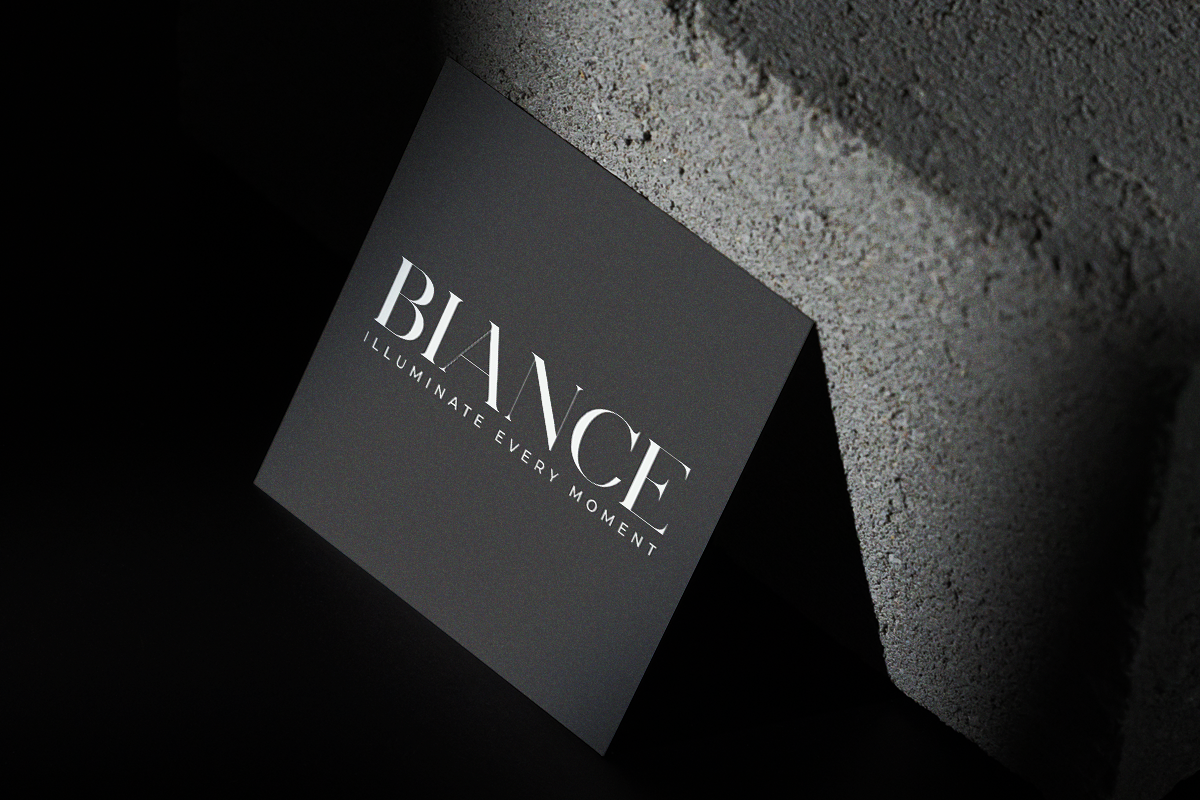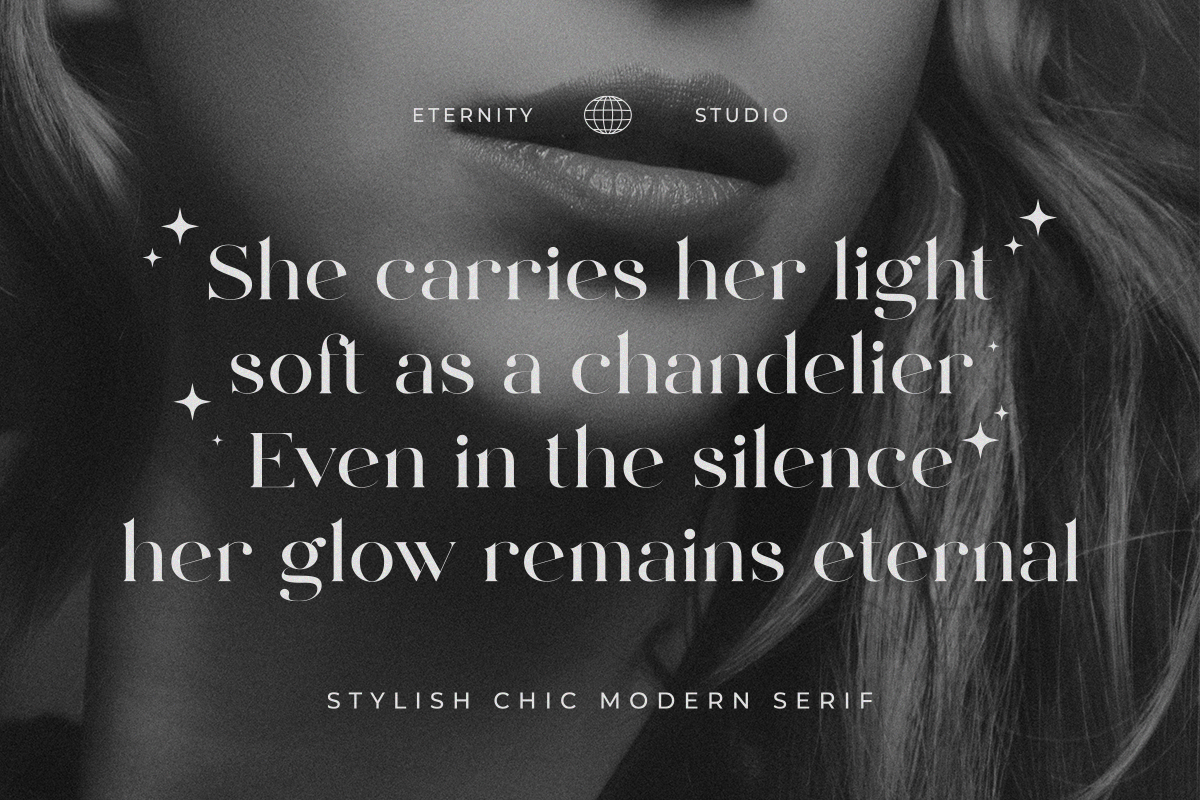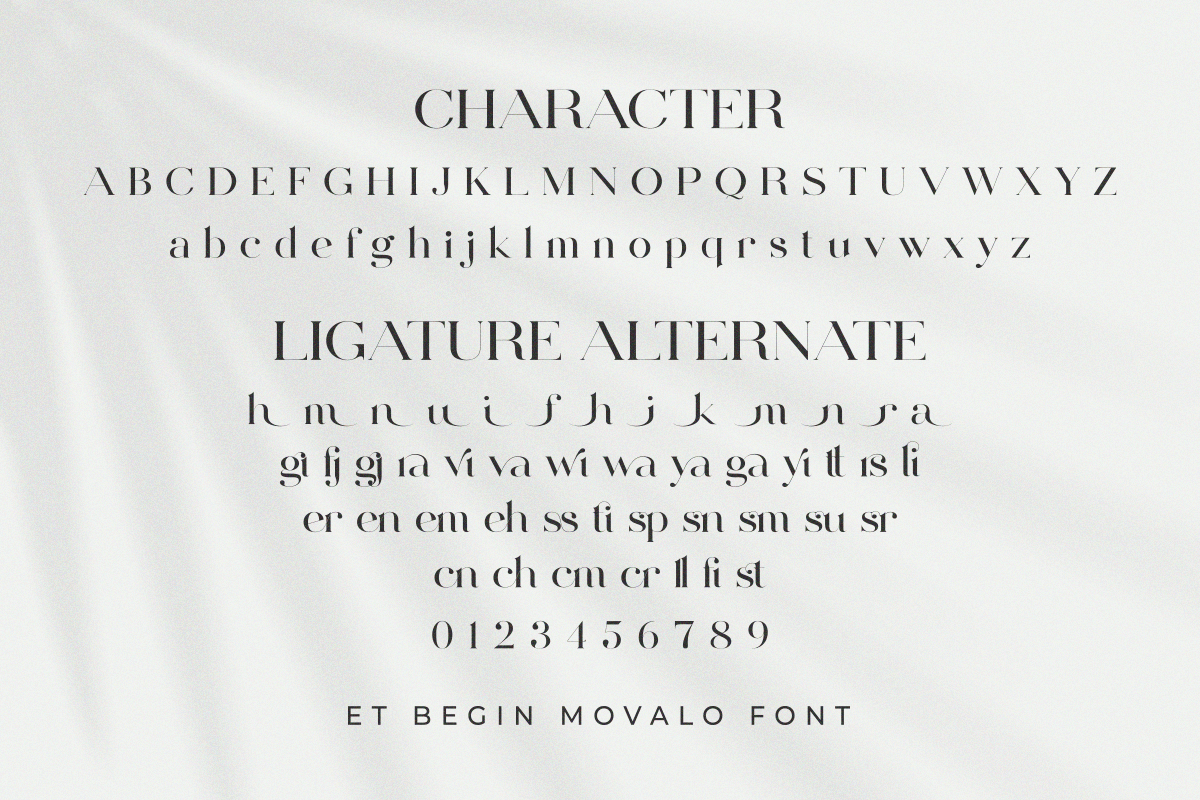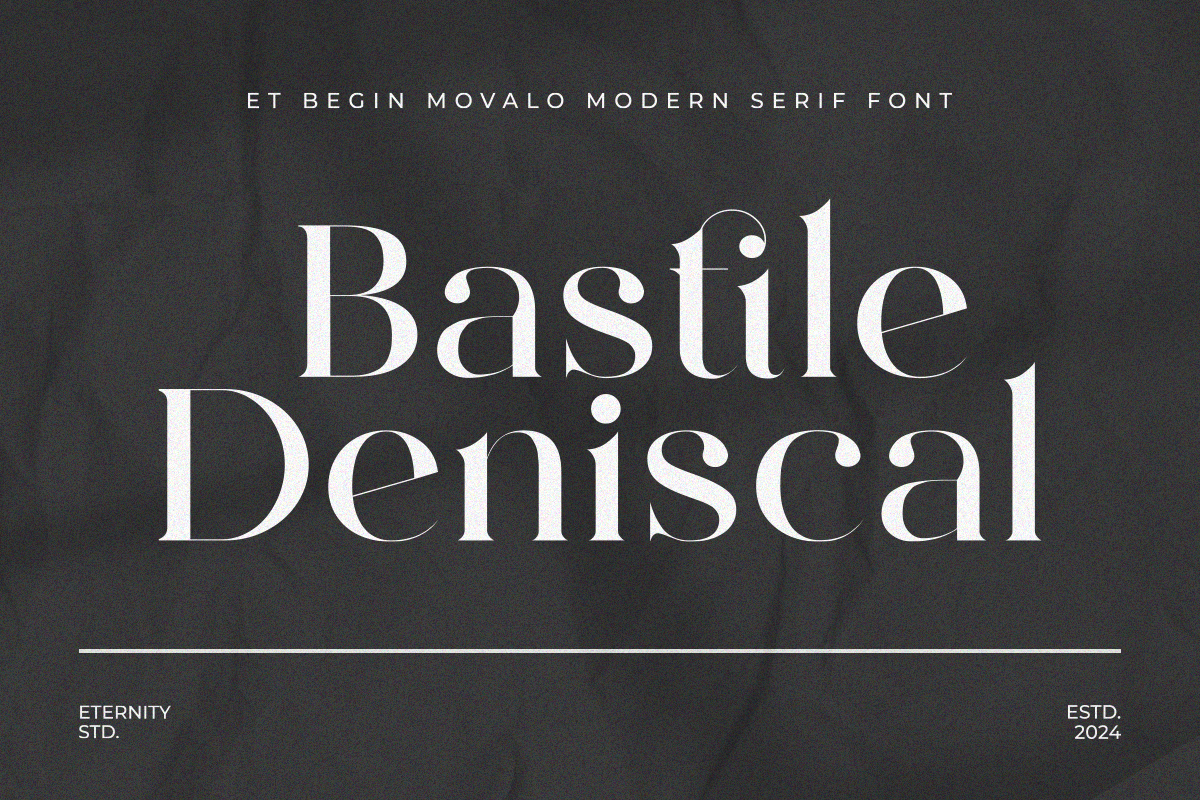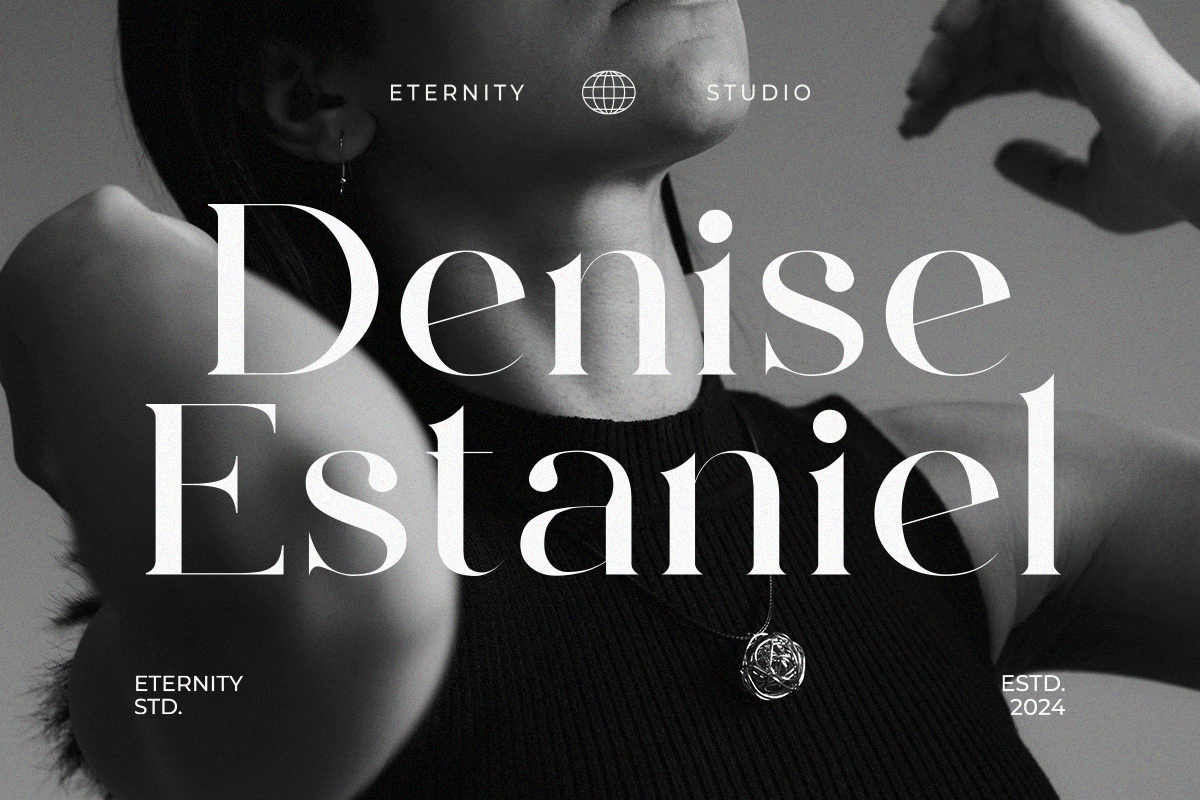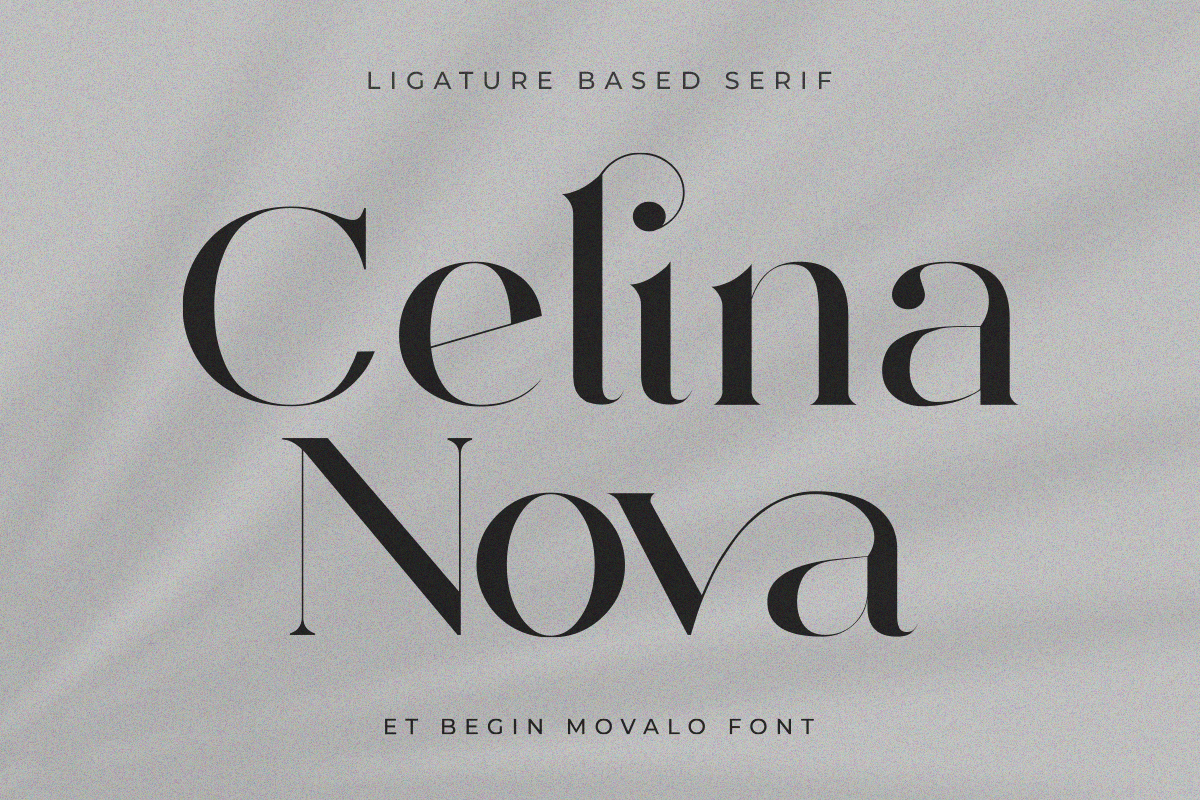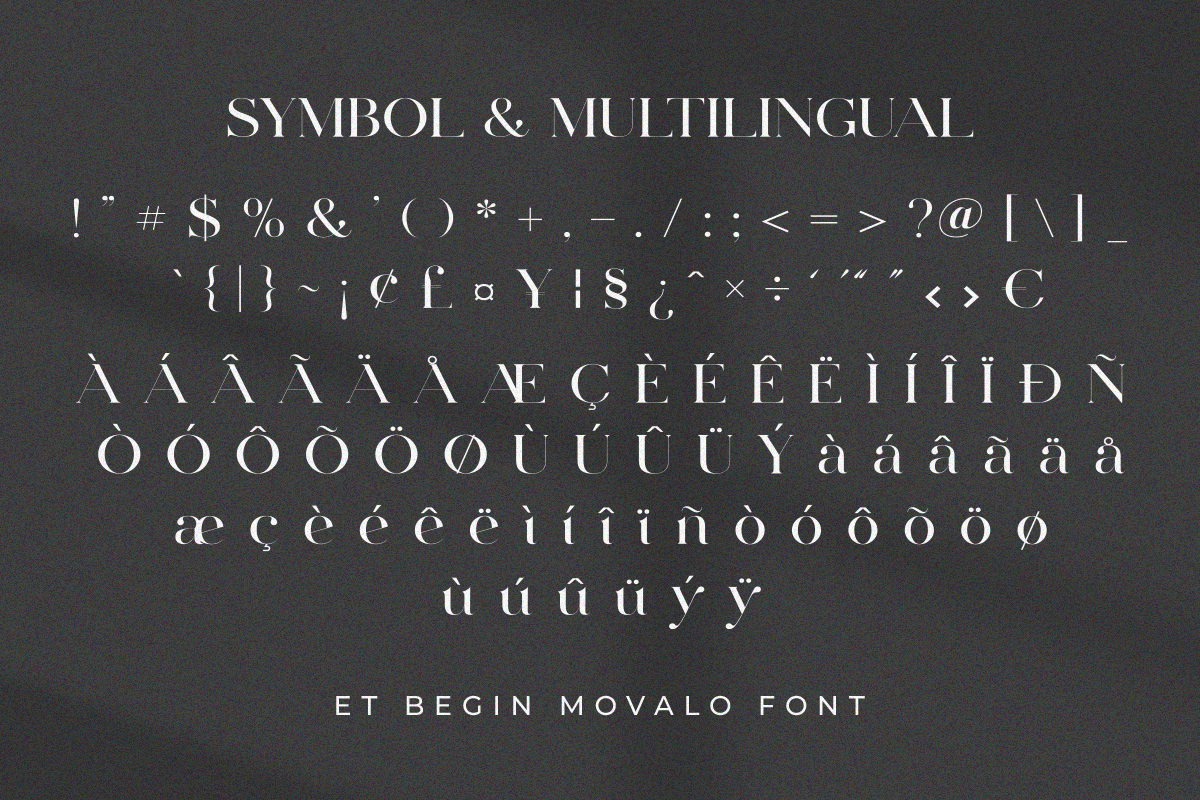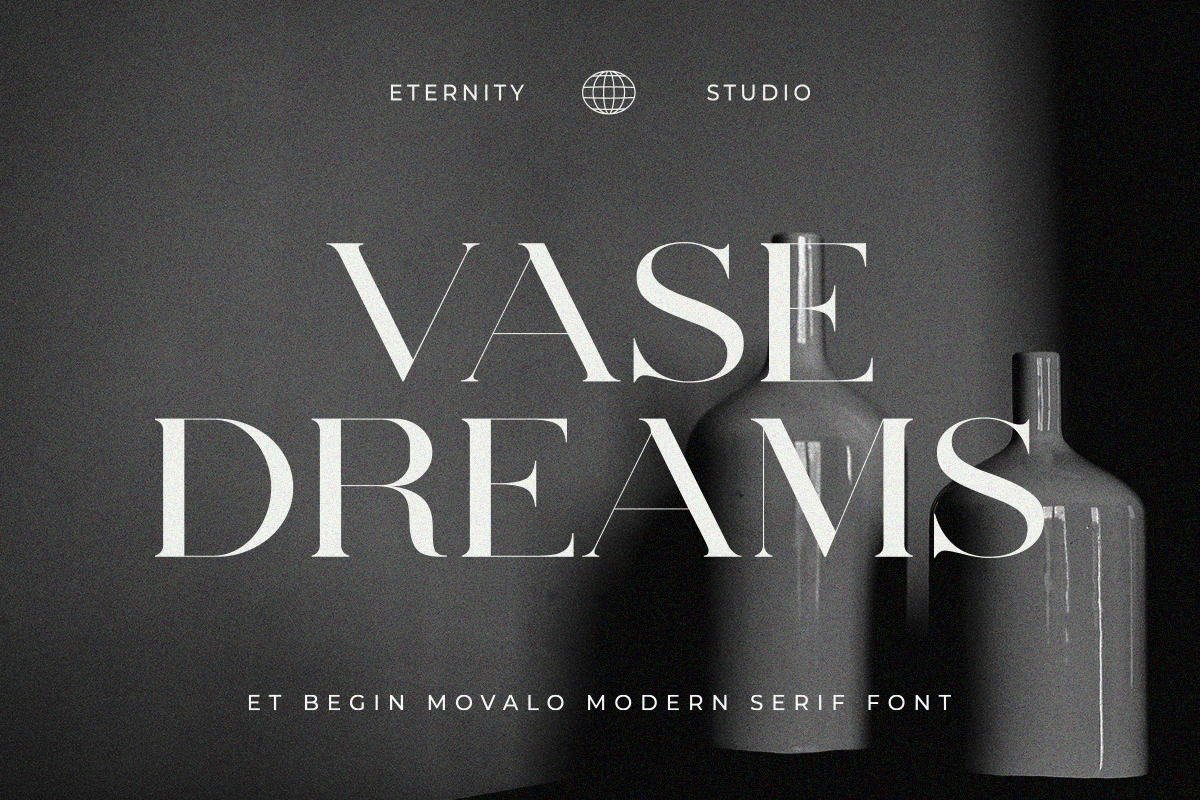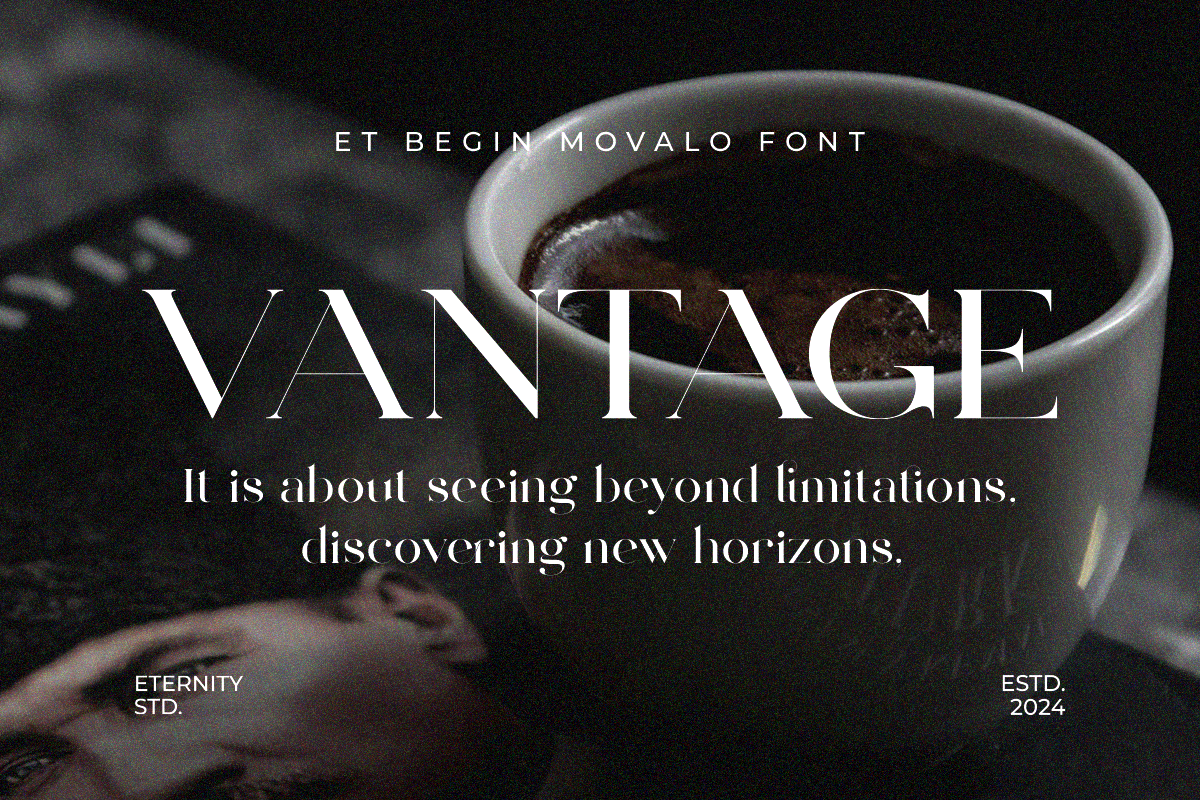
ET Begin Movalo - Modern Serif
ET Begin Movalo is a stylish and chic modern serif font designed to bring sophistication and trend-forward energy to your creative projects. With its clean shapes, refined details, and contemporary look, this typeface balances elegance and modernity perfectly.
Ideal for:
Branding & logo design
Fashion magazines & editorial layouts
Wedding invitations & stationery
Product packaging & luxury labels
Social media & digital graphics
Every character in ET Begin Movalo is crafted with a unique flair, making it a versatile choice for designers who want their work to stand out with a classy yet modern vibe.
Let ET Begin Movalo elevate your designs with chic elegance and timeless sophistication.